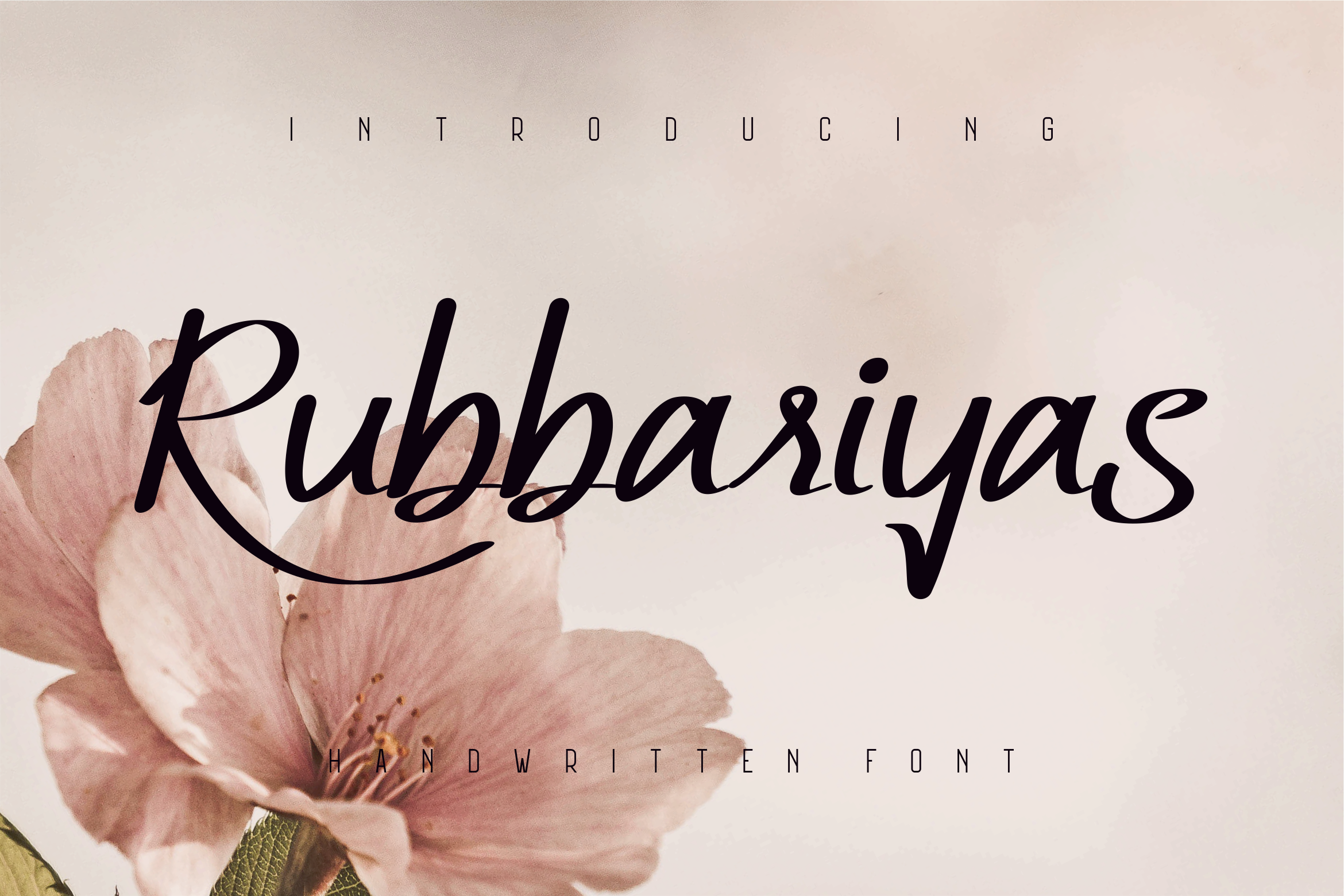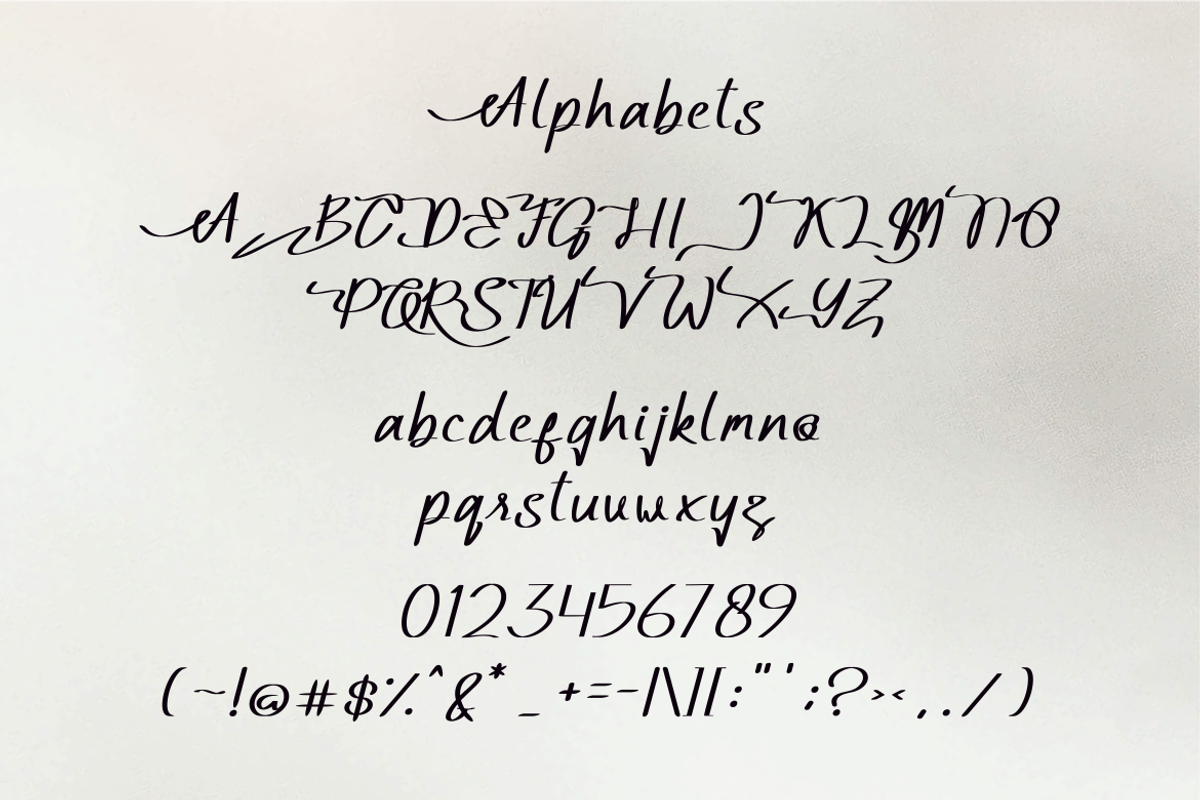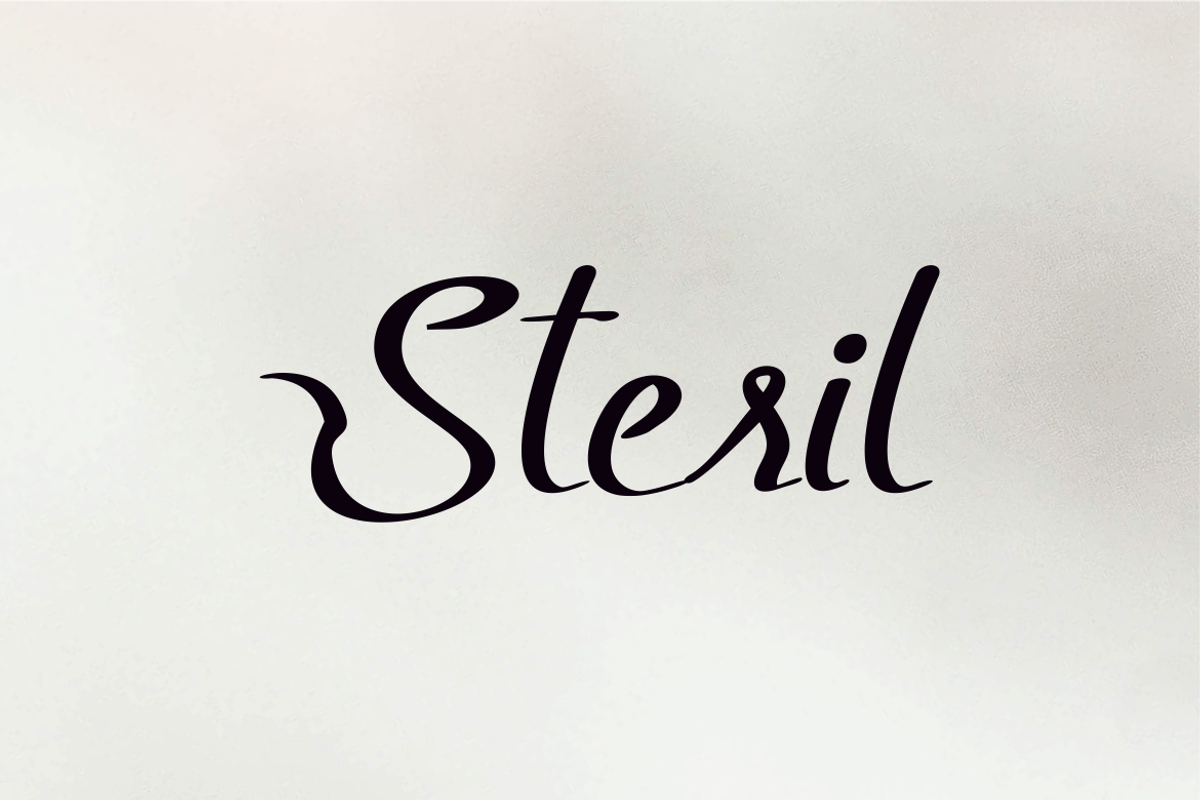
Rubbariyas 2 Font
Rubbariyas 2 Font It has a elegant, classy look and modern. It’s a great font for fashion, apparel projects, signature, album cover,logo, branding, magazine, social media, & advertisements, but also works great for other projects.